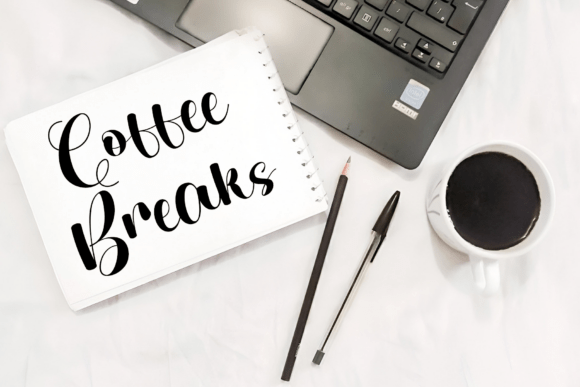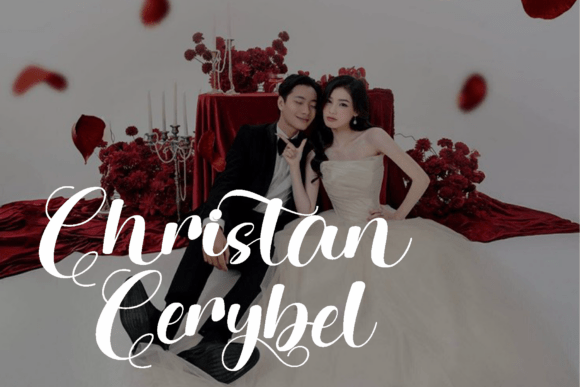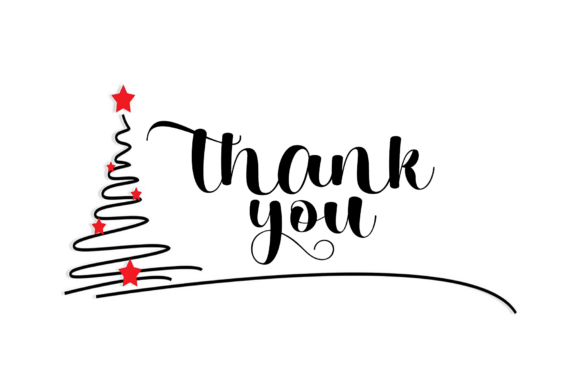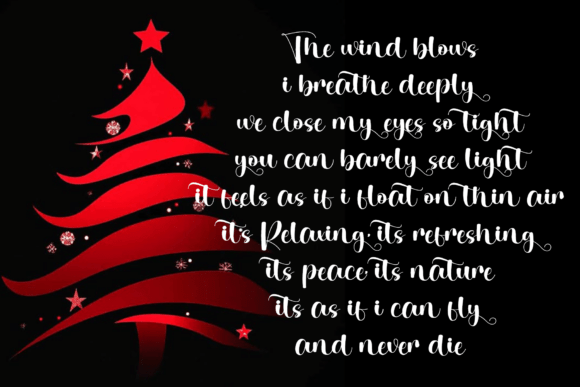
Introducing Christmas Beginty Font: Elevate Your Designs with Elegance
Are you on the hunt for a font that embodies the perfect blend of modern sophistication and romantic charm? Look no further than the Christmas Beginty Font. This exquisite, handwritten script font is designed to add a touch of grace and elegance to any project, making it an ideal choice for designers and crafters alike.
The Essence of Christmas Beginty Font
Christmas Beginty is a graceful, modern, and stylized handwritten script font that boasts smooth, fluid strokes and lovely ornamental curves. These features give it a distinctly feminine, professional, and slightly romantic touch, perfect for a wide range of applications. Whether you’re working on custom sublimation designs, boutique branding, personalized gifts, custom stationery, or any project that demands a clean, highly stylized, and beautifully functional handwritten script, Christmas Beginty is the perfect fit.
Key Features of Christmas Beginty Font
- Smooth and Fluid Strokes: The font’s smooth strokes ensure a luxurious feel, making it perfect for high-end designs.
- Lovely Ornamental Curves: The ornamental curves add a touch of romance and sophistication, ideal for designs that require a bit of elegance.
- Feminine and Professional Touch: The font’s unique style strikes the perfect balance between femininity and professionalism, suitable for a wide range of projects.
- Consistent Weight and Clean Connections: These features ensure excellent legibility, making it easy to read and understand.
Applications of Christmas Beginty Font
Christmas Beginty Font is incredibly versatile and can be used in various projects, including:
- Custom Sublimation Designs: Add a personal touch to your sublimation designs with this elegant font.
- Boutique Branding: Elevate your brand with a sophisticated and stylish font that speaks luxury.
- Personalized Gifts: Create unique and thoughtful gifts with beautifully designed personalized items.
- Custom Stationery: Add a touch of elegance to your stationery with this beautiful handwritten script font.
Why Choose Christmas Beginty Font?
In a world where fonts are plentiful, Christmas Beginty stands out for several reasons:
- Unique Style: Its blend of modernity and romance is hard to find, making it a unique addition to your font collection.
- Legibility: The consistent weight and clean connections ensure that your message is conveyed clearly and effectively.
- Versatility: It can be used in a variety of projects, from digital designs to print materials.
Tips for Using Christmas Beginty Font
To make the most out of Christmas Beginty Font, consider the following tips:
- Pair it with Complementary Fonts: Use it alongside simple, sans-serif fonts to create a striking contrast.
- Experiment with Colors: While it looks great in black, don’t be afraid to experiment with colors that match your brand or project’s theme.
- Pay Attention to Size: Ensure the font size is appropriate for your medium. It should be large enough to be readable but also balanced with other design elements.
Christmas Beginty Font is more than just a font; it’s a design element that can elevate your projects to new heights of elegance and sophistication. Its unique blend of modernity, romance, and professionalism makes it an invaluable asset for designers and crafters looking to add a touch of grace to their work. Whether you’re creating custom sublimation designs, boutique branding, personalized gifts, or custom stationery, Christmas Beginty is sure to make your projects stand out. So why wait? Embrace the elegance and versatility of Christmas Beginty Font and watch your designs transform into beautiful works of art.